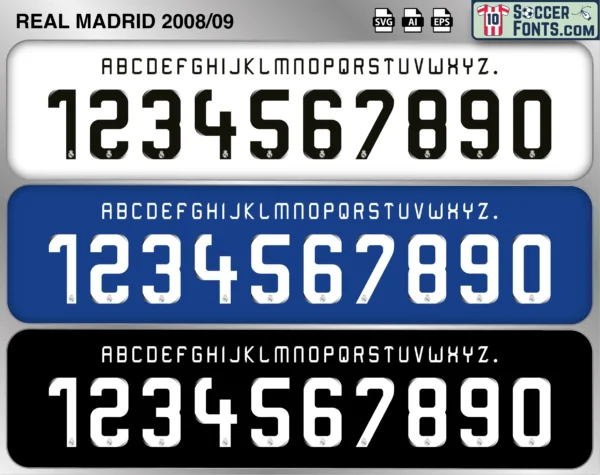
Real Madrid 2008-09 Font
The Real Madrid 2008-09 font is an editable soccer jersey lettering design in vector format inspired by the Real Madrid kit style used during the 2008-09 football season. This football font artwork is prepared for football shirt recreations, custom jersey projects, football kit mockups and sports graphic design workflows.
The 2008-09 season represented the final chapter before a major transformation at Real Madrid. Managed by Bernd Schuster during the first half of the campaign and later by Juande Ramos, the squad included Raúl, Iker Casillas, Sergio Ramos, Gonzalo Higuaín, Arjen Robben, Wesley Sneijder, Pepe and Ruud van Nistelrooy. Injuries affected several key players, while Higuaín and Robben emerged as two of the team’s standout performers. Real Madrid remained competitive in La Liga for much of the season despite facing an exceptional FC Barcelona side that would go on to make football history.
The Real Madrid 2008-09 font became associated with the closing season before the arrival of a new generation of Galácticos. Although Real Madrid finished second in La Liga and exited the UEFA Champions League in the Round of 16 once again, the campaign marked the end of an important era for the club. During the following summer, Real Madrid signed Cristiano Ronaldo, Kaká, Karim Benzema and Xabi Alonso, ushering in one of the most ambitious rebuilding projects in football history. Real Madrid shirts from the 2008-09 season remain popular among football shirt collectors because they represent the final campaign before the Cristiano Ronaldo era transformed the club. The Real Madrid 2008-09 font reflects a season that served as the bridge between two iconic generations of Real Madrid football.